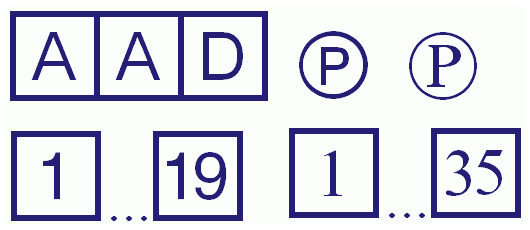
What it says: those ancient numbers in square boxes, once used for tracks on audio CDs. Up to number 35, also a (P) in a circle and the [A] and [D] in square boxes for analog/digital recording. Have fun. |